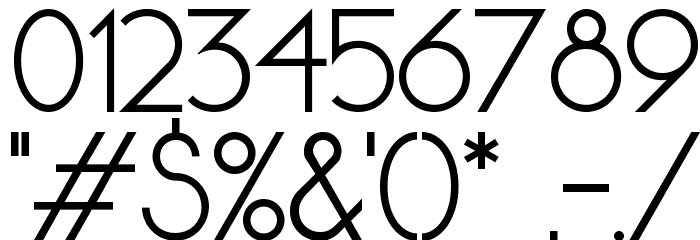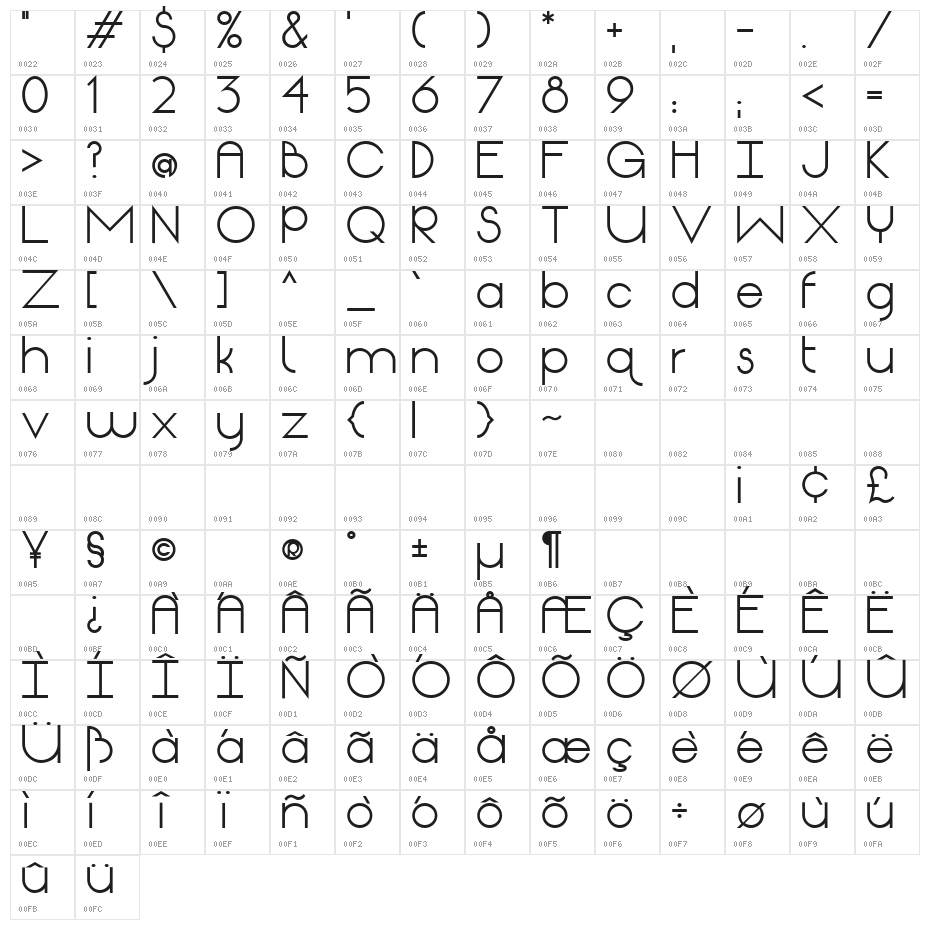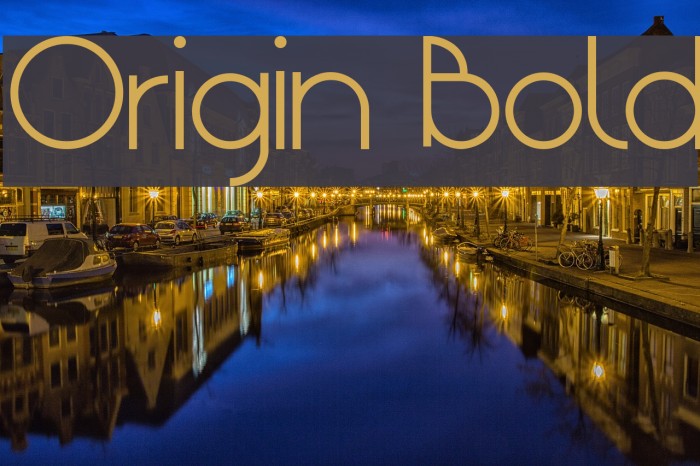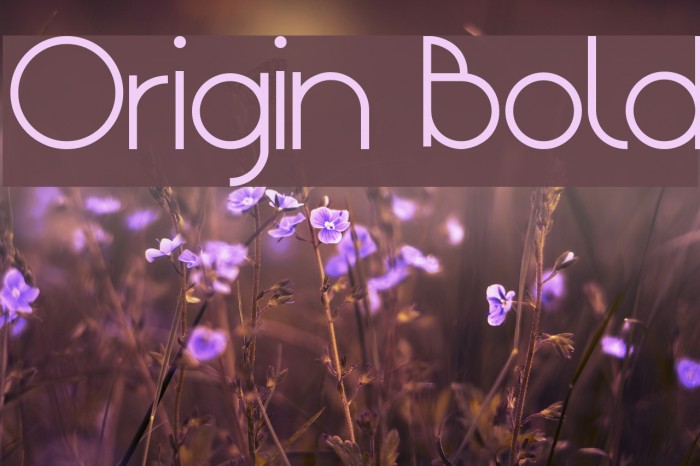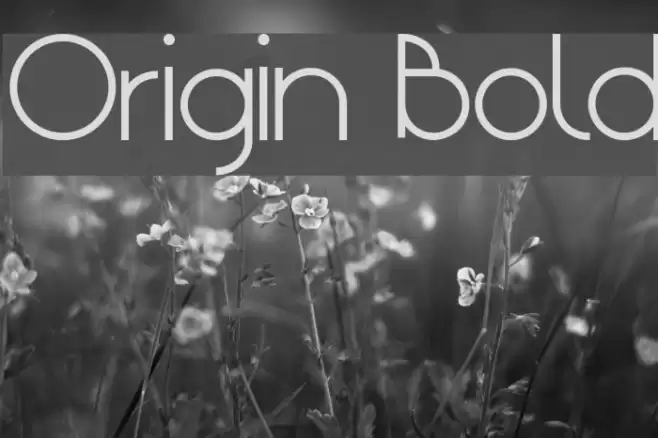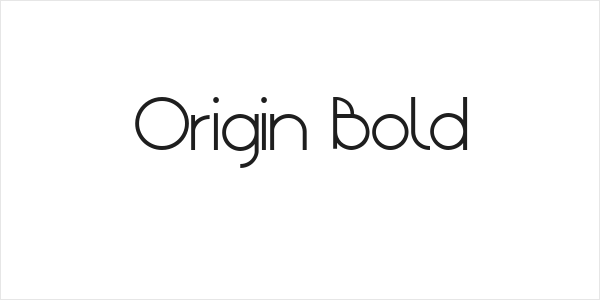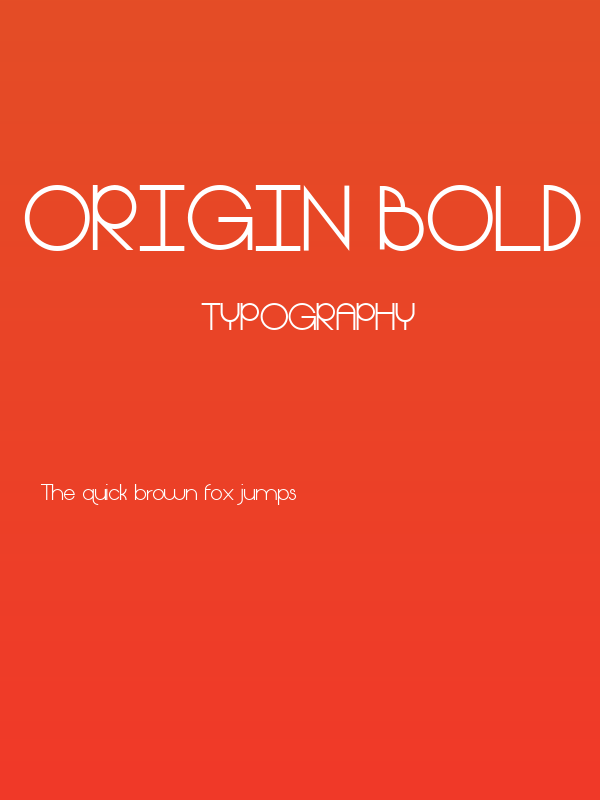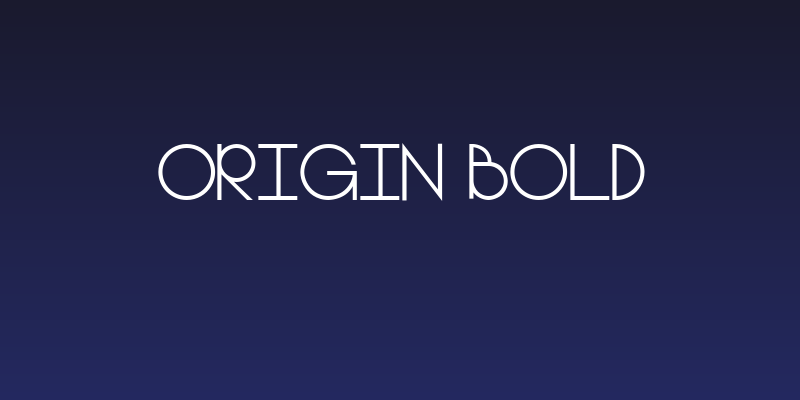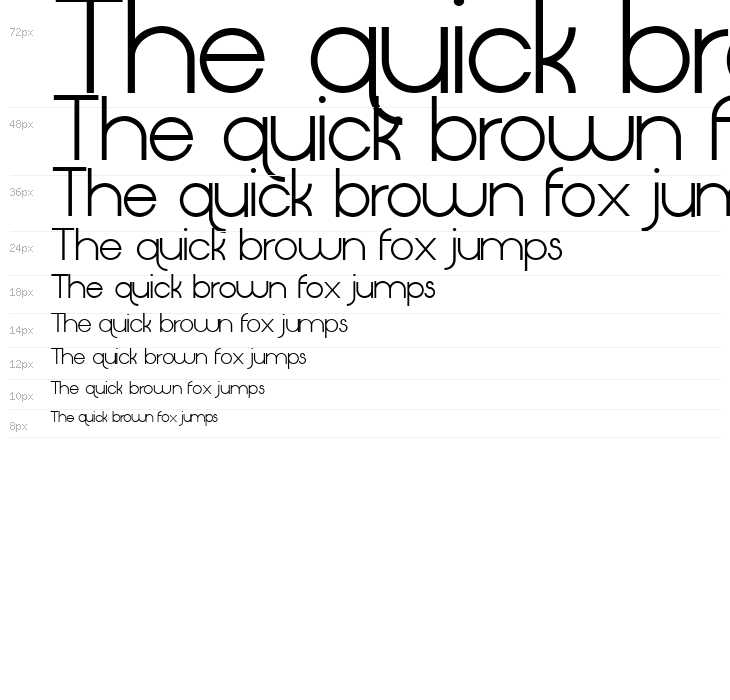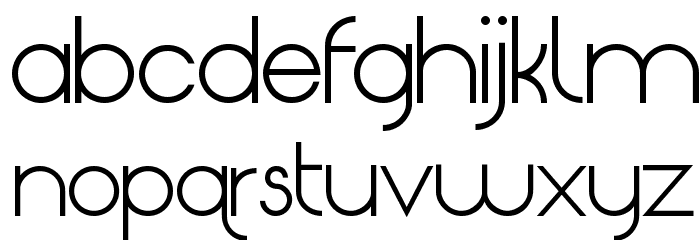
Origin Bold Font
Origin Bold Description
This typeface features a sleek, modern design with a geometric structure. The characters are clean and minimalistic, with a uniform stroke width that gives it a contemporary and professional appearance. The uppercase letters are tall and narrow, while the lowercase letters maintain a consistent roundness, creating a harmonious balance. The numerals are clear and legible, matching the overall aesthetic of the font. Special characters are designed with the same attention to detail, ensuring versatility across various applications. This font is ideal for projects that require a modern and sophisticated look.